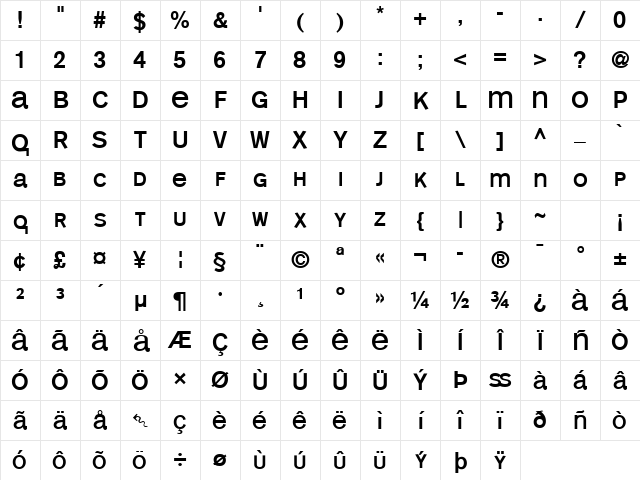
MonoAlphabet Regular Free Font
MonoAlphabet Regular
Design Context for MonoAlphabet
MonoAlphabet uses fixed-width spacing throughout, giving it the structured, systematic character associated with coding environments and technical documentation.
Pro Tip: Use MonoAlphabet with slightly increased line-height for extended reading - fixed-width spacing can feel dense in longer passages without extra breathing room.